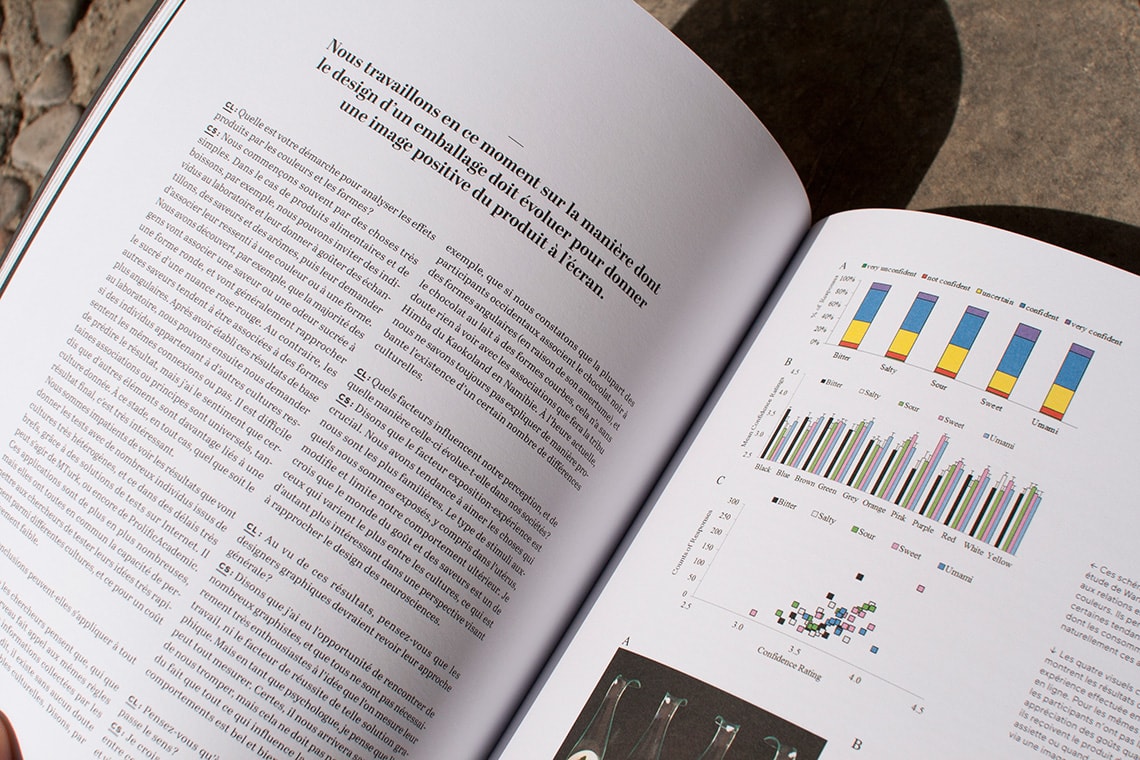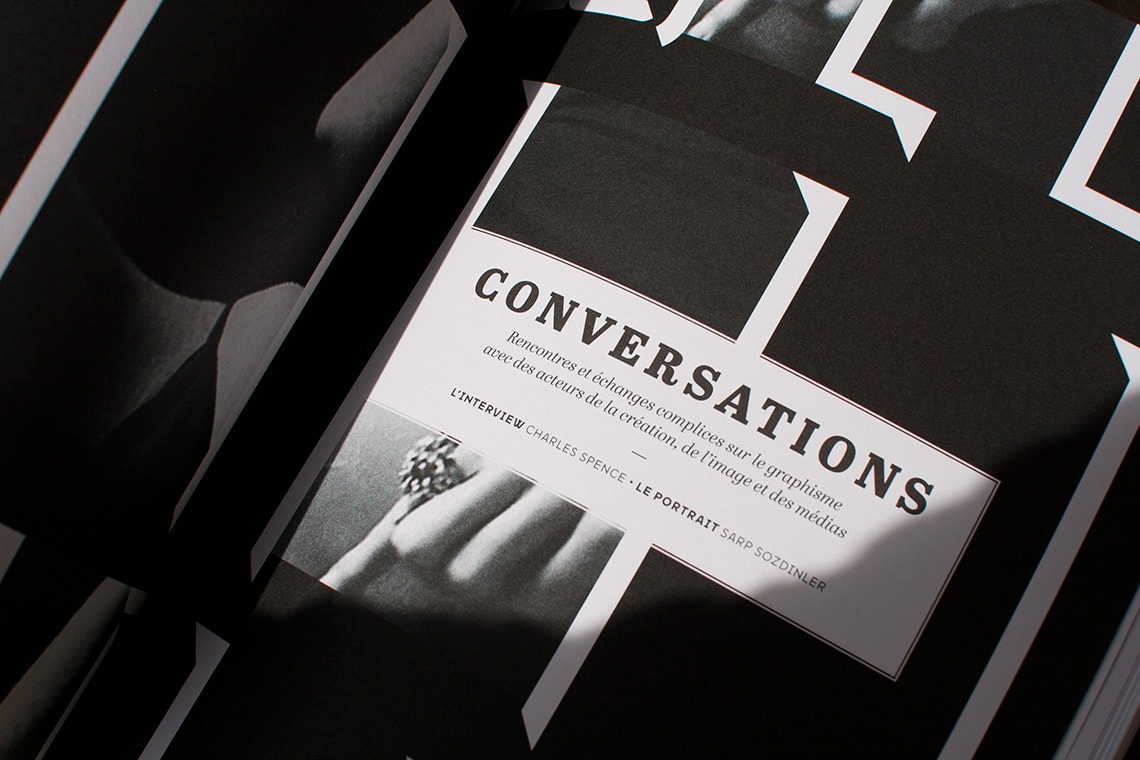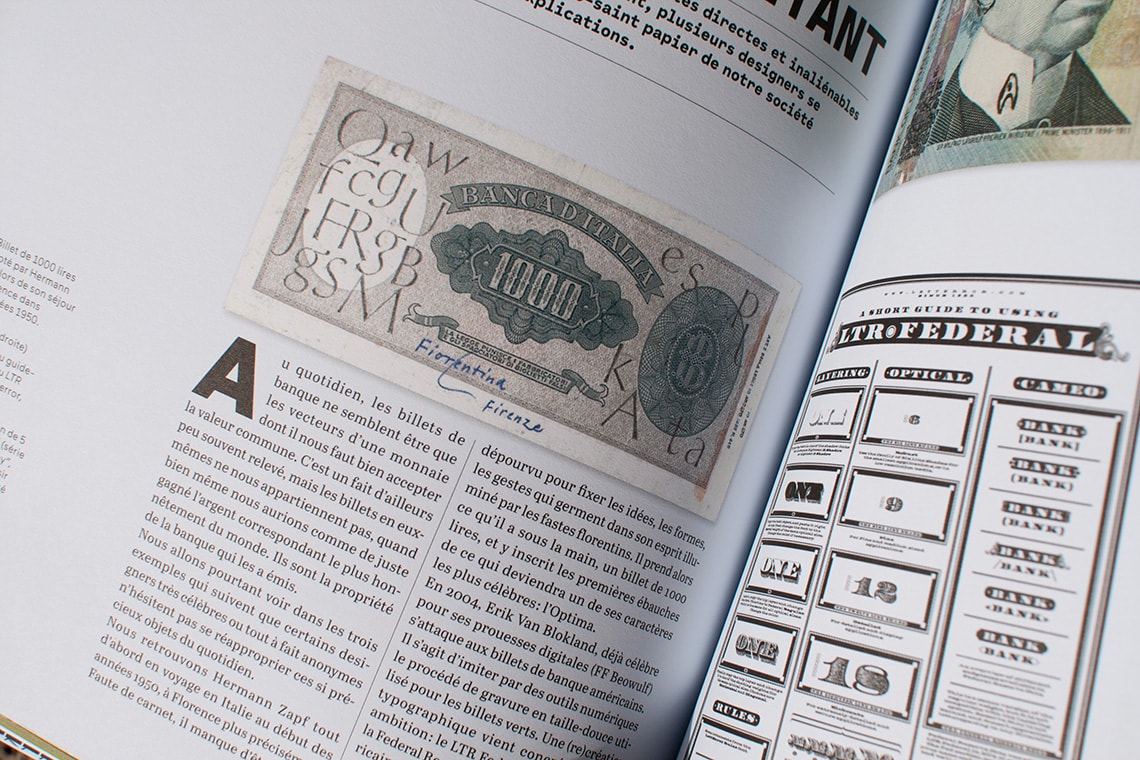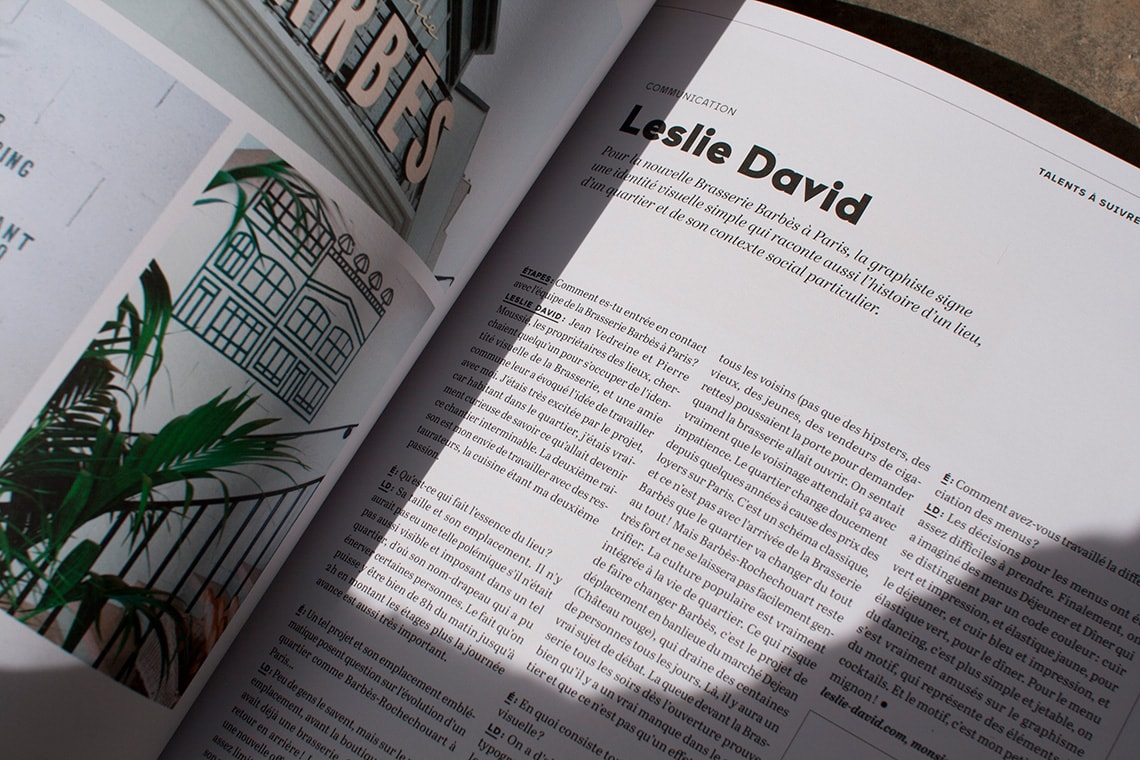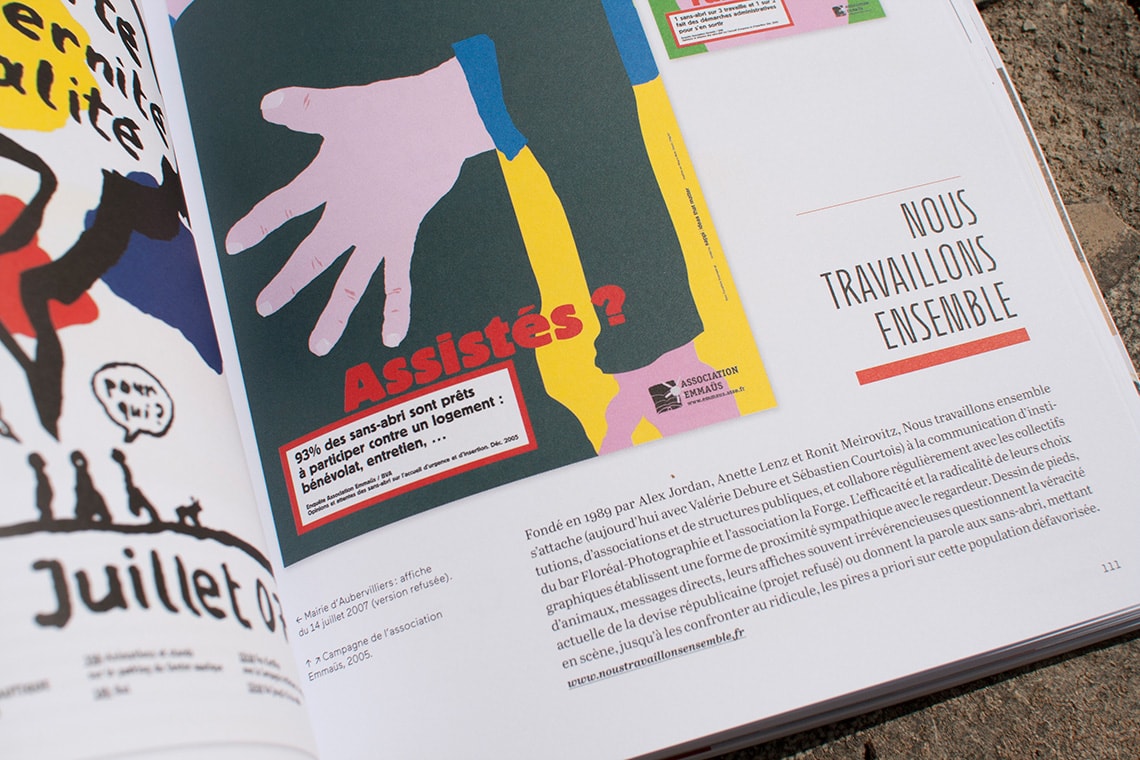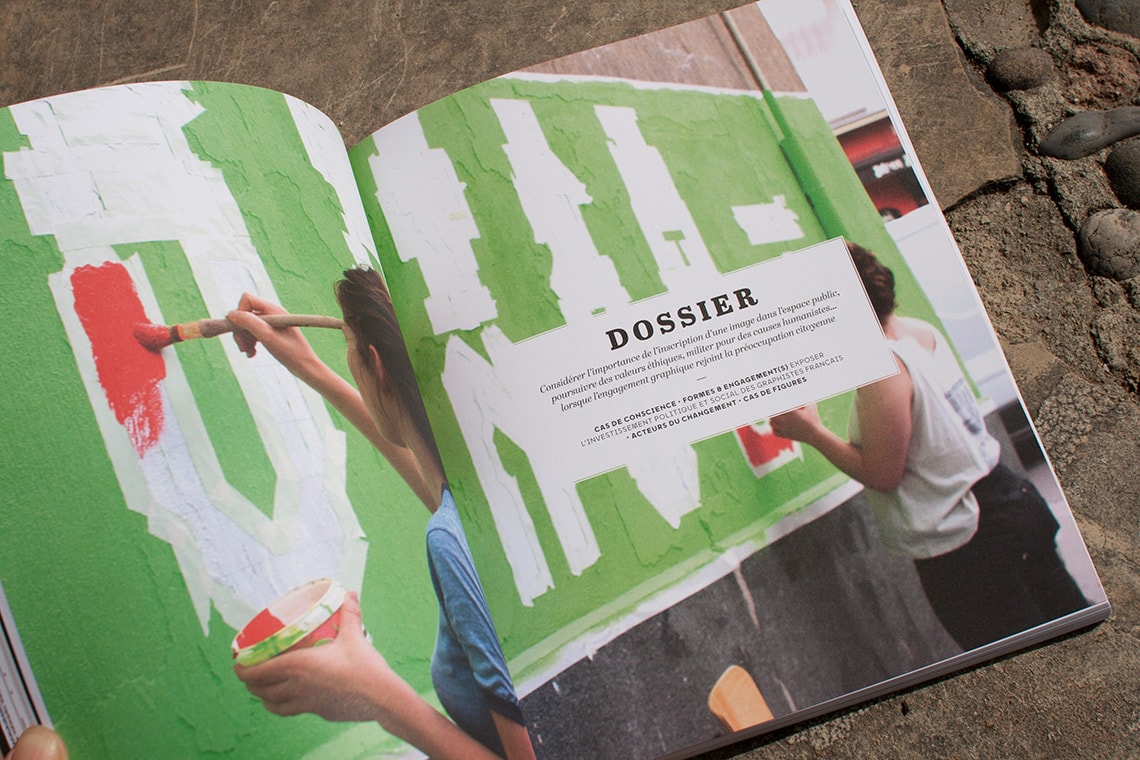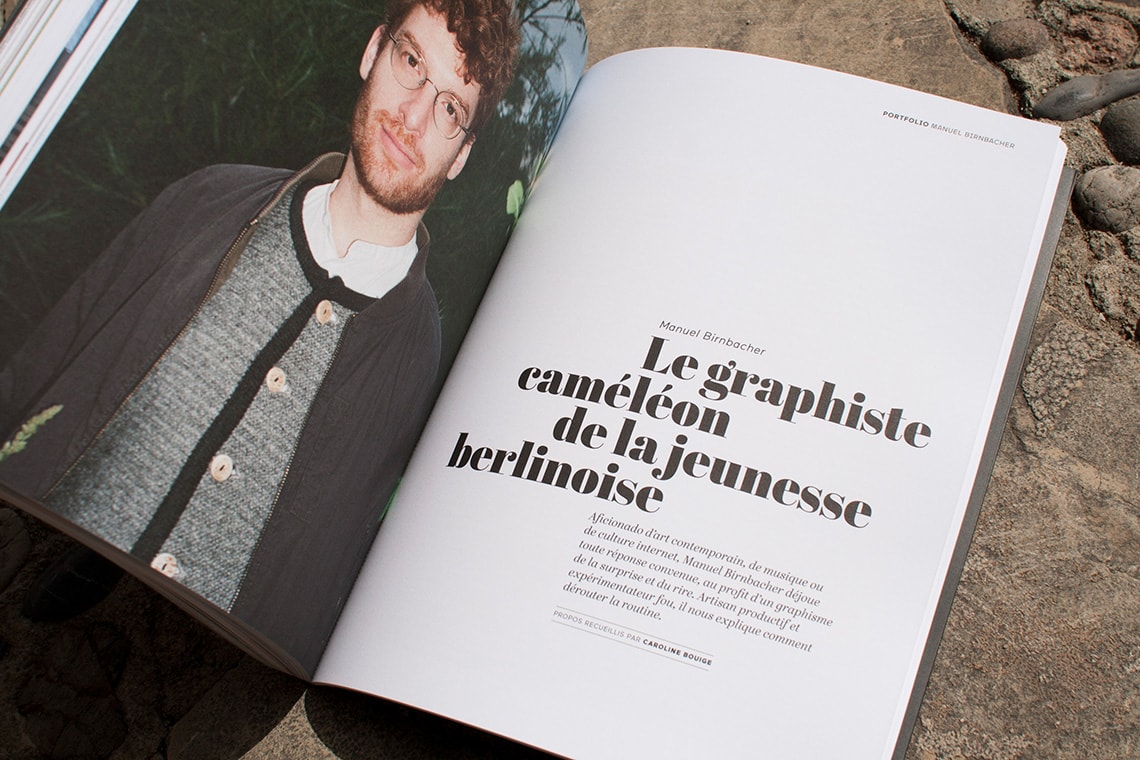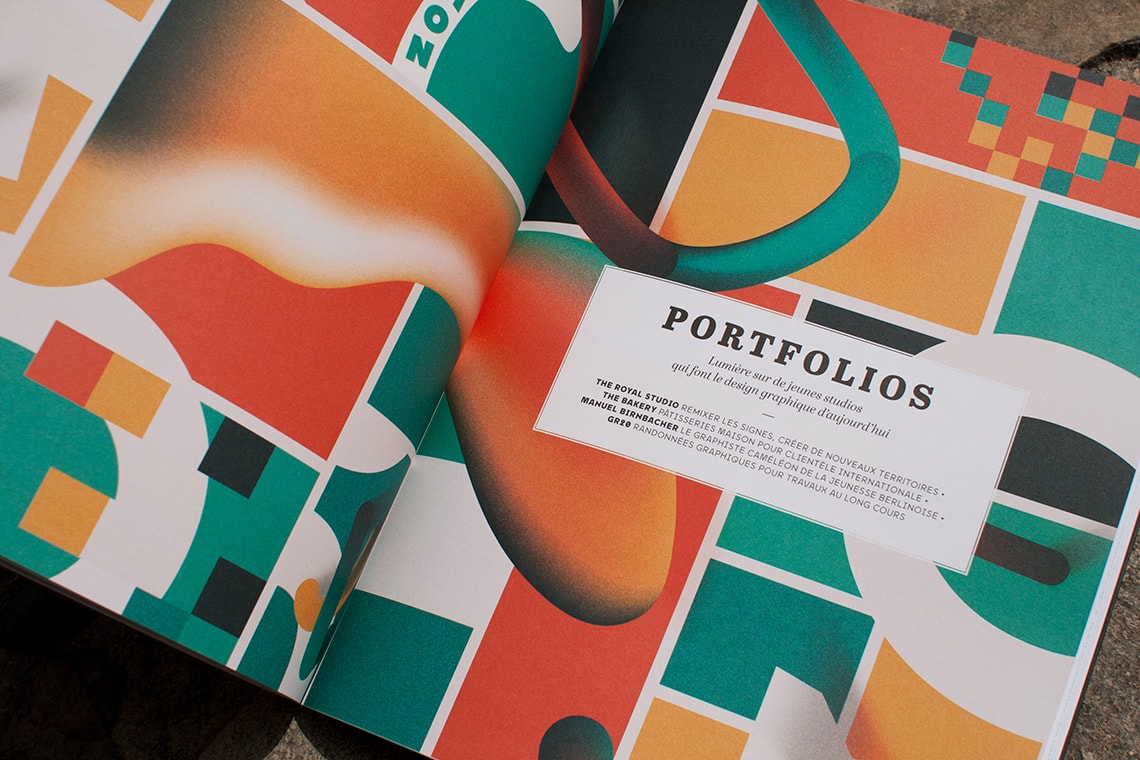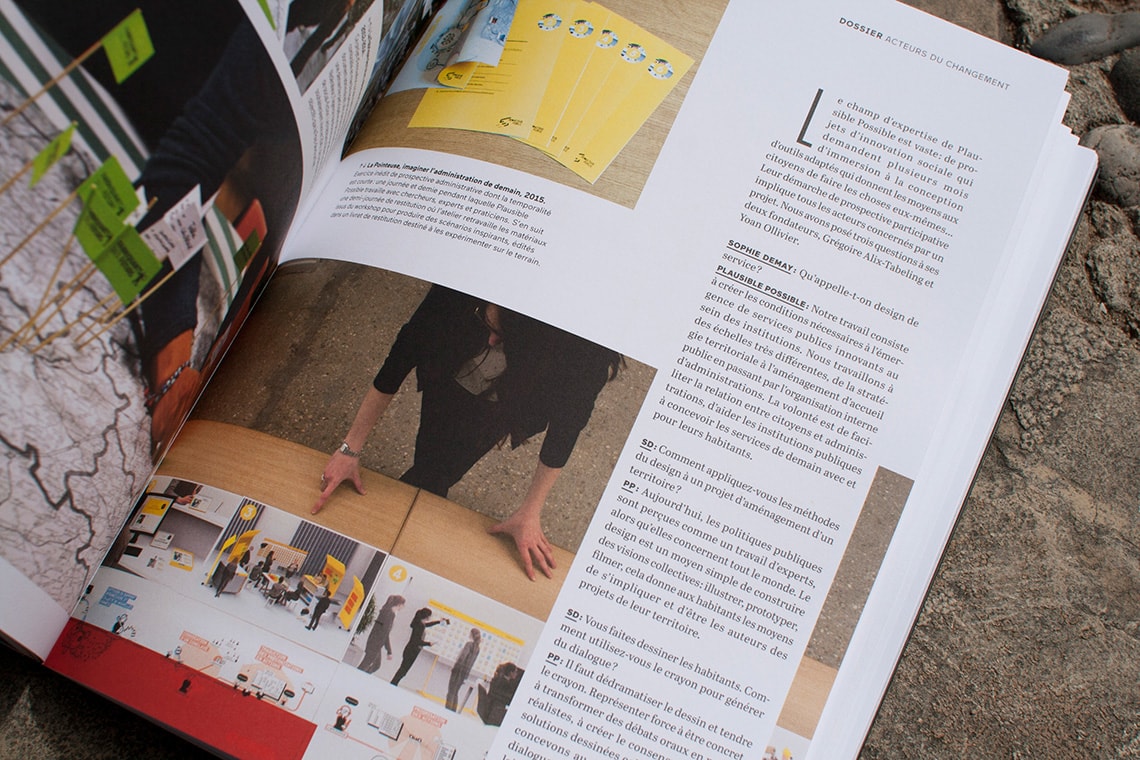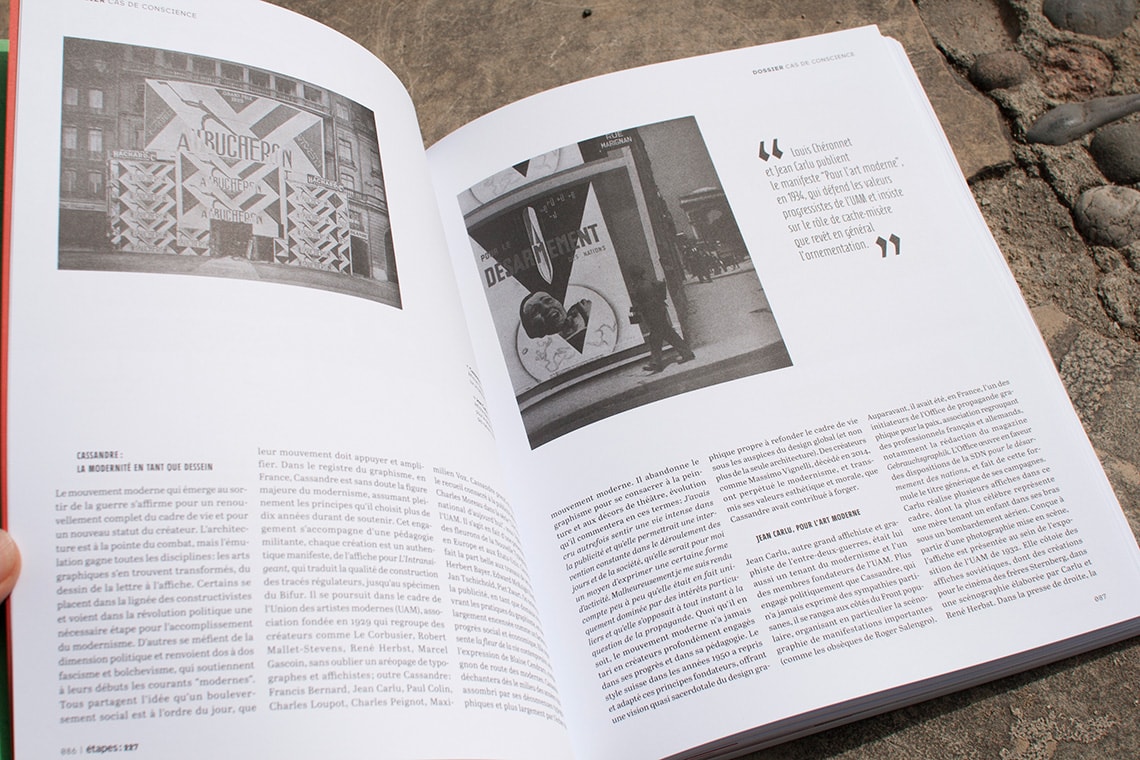
Étapes 227, that includes a special about the 50 best typefaces of 2014, uses Abril Text and Abril Display.
Issue 227 of French magazine Étapes uses TypeTogether’s Abril Text in body texts and Abril Display for headlines and section openings. While Abril Text creates a warm and inviting texture, Abril Display contributes elegance and strong presence on the page.
Additionally, the current issue features a selection of the best 50 typefaces of 2014, with the first place award going to Dr Gerard Unger for Alverata. Stefan Ellmer’s Essay Text and Ermin Međedović’s Lipa Agate also were included in these esteemed awards.
Wining is one thing, but to see a typeface used in heavy rotation is another kind of compliment. Étapes Magazine also chose TypeTogether’s Abril Text and Abril Display for its announcement of the 50 best typefaces of 2014. The Abril family is a credible and contemporary newsface covering every conceivable parameter for setting editorial text, from enormous edge-to-edge headings to the smallest readable text.